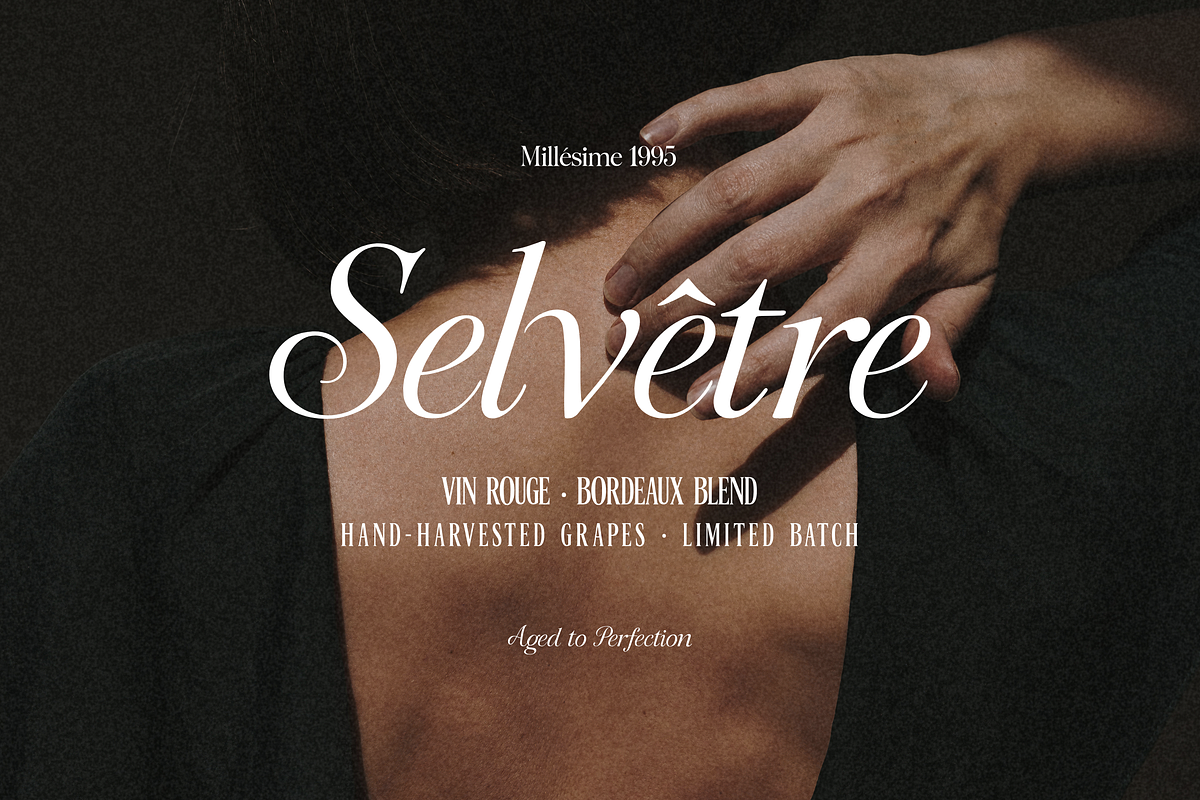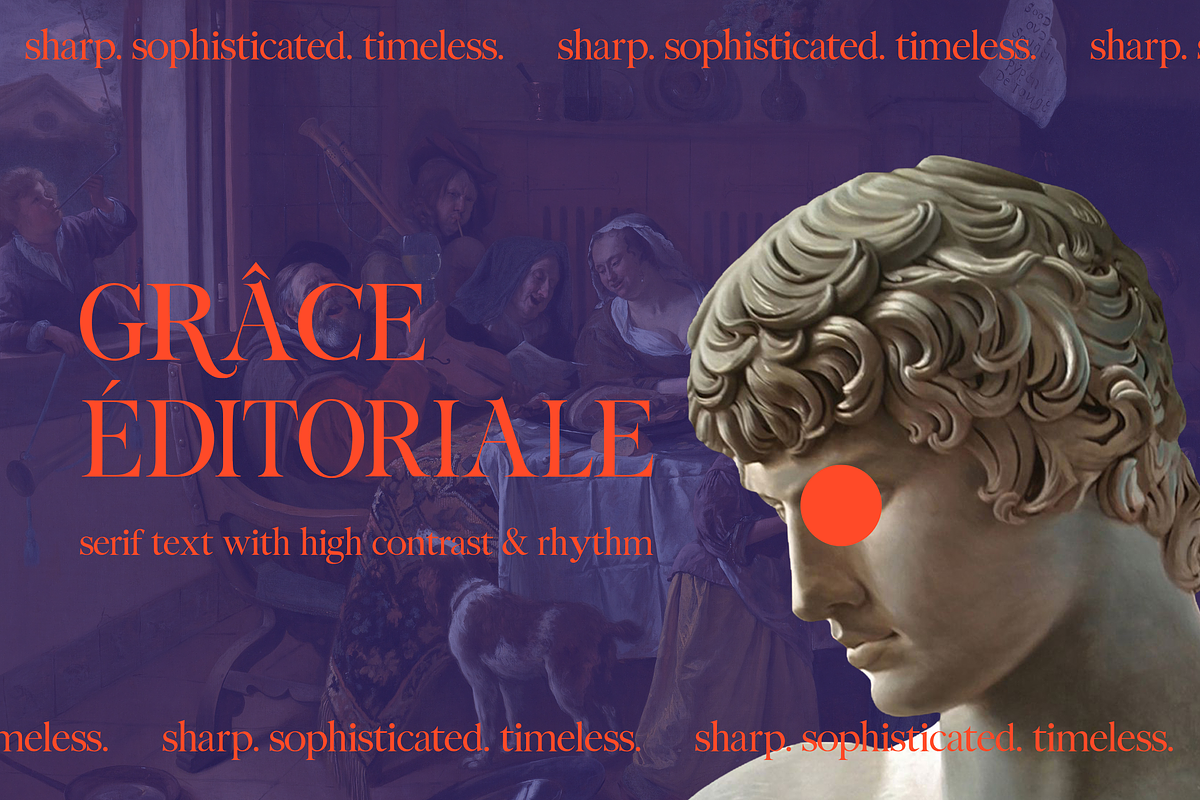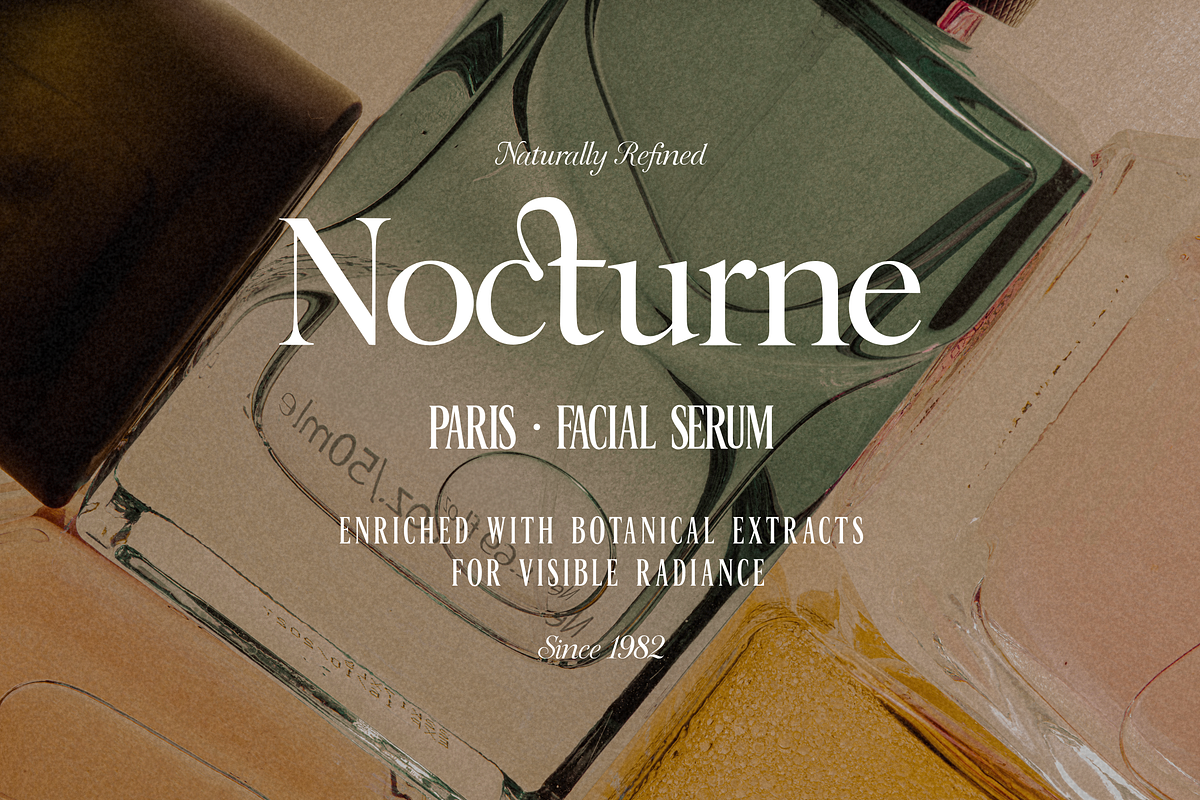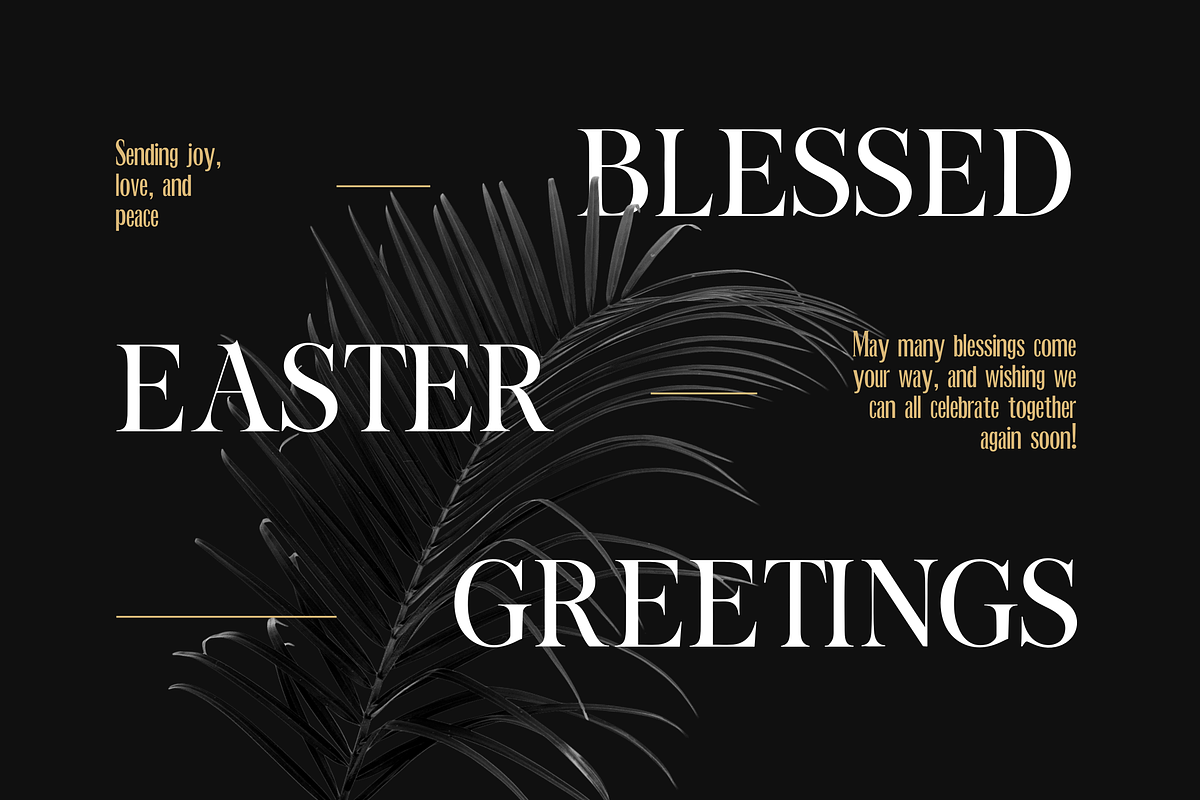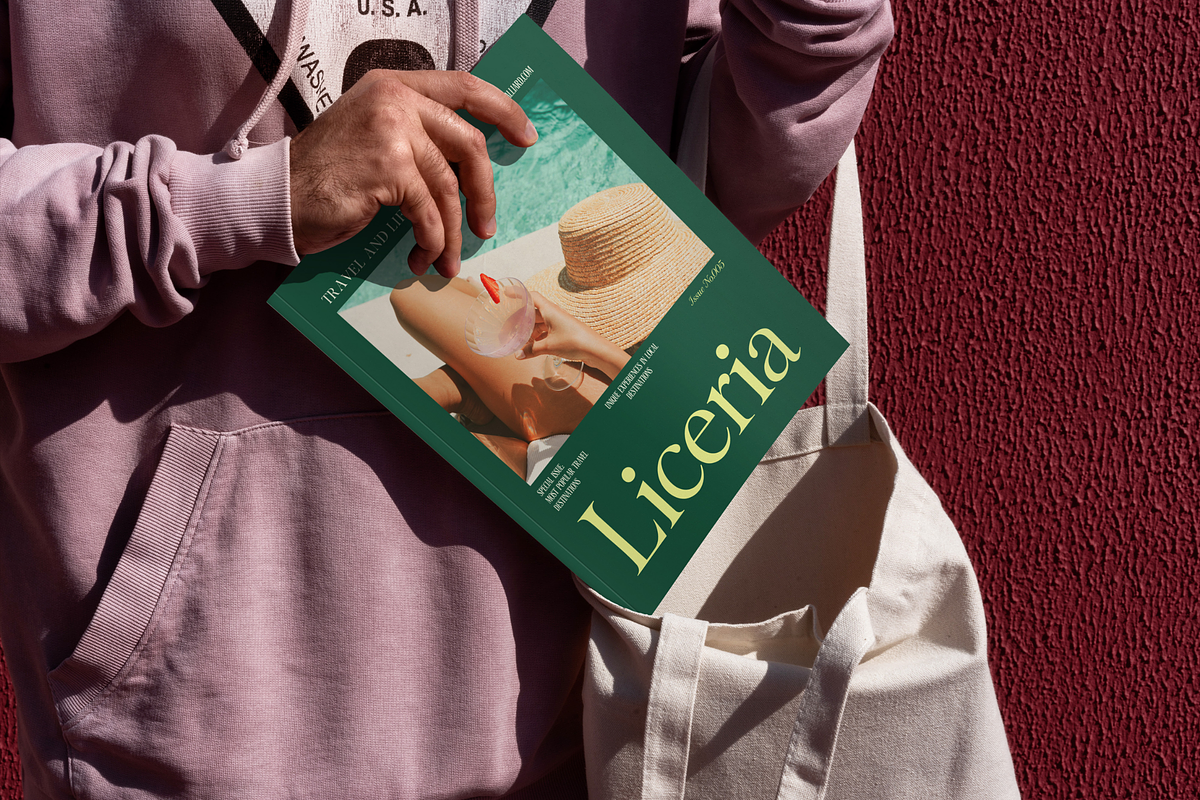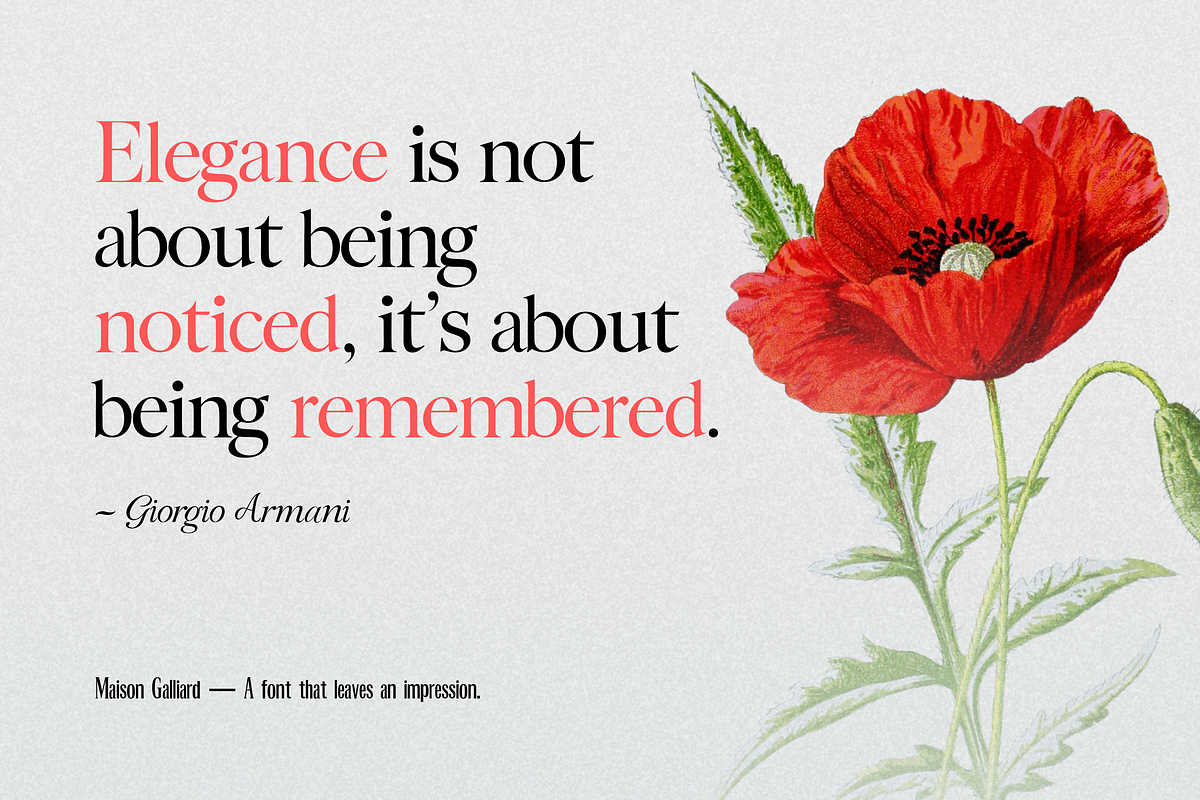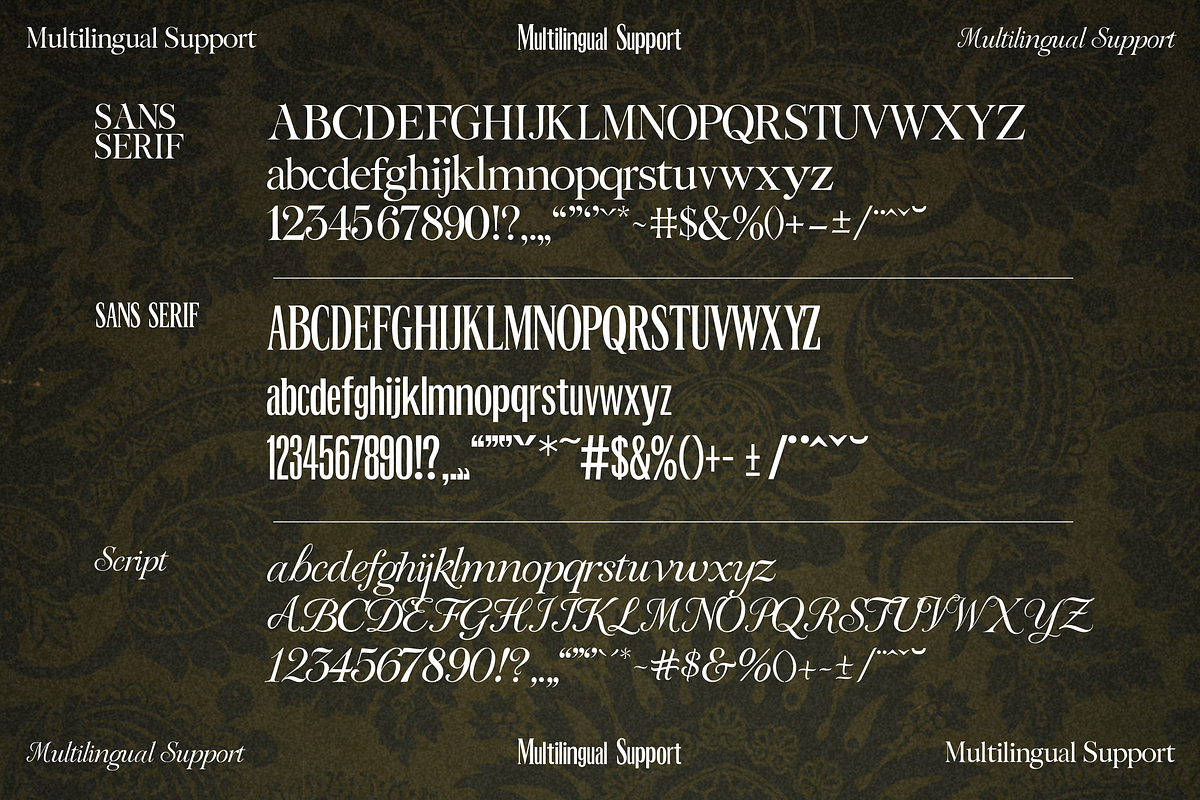
Maison Galliard – Elegant Font Trio
✨ Maison Galliard – Editorial Font Trio
Maison Galliard is an elegant editorial font family featuring three distinct styles: Serif, Sans Condensed, and Script. Inspired by 1960s French editorial design and Renaissance type aesthetics, this trio is crafted to bring timeless sophistication and expressive flair to your visual storytelling.
Whether you’re designing a luxury brand identity, a modern magazine layout, or romantic packaging, Maison Galliard gives you the flexibility to mix strong contrast, clean structure, and flowing handwriting—all in one cohesive system.
- Maison Galliard Serif – a high-contrast editorial serif with sharp triangular serifs and condensed proportions
- Maison Galliard Sans – a refined, space-saving sans condensed, perfect for modern layouts and subtext
- Maison Galliard Script – a flowing calligraphic script for elegant taglines, logos, and accents
- Full uppercase & lowercase A–Z
- Numerals & punctuation
- Alternates & stylistic ligatures (AR, CK, CT, TT, and more)
- Multilingual support (Western European characters)
🖋️ Perfect for:
- Editorial & magazine titles
- Luxury branding & packaging
- Fashion lookbooks
- Wedding invitations
- Logo signatures
- Classy social media posts & more
📐 Design Inspiration Maison Galliard draws its rhythm from the contrast of old-style serif cuts and modern minimalist balance. Use all three styles together to create dynamic typography systems that feel both classic and contemporary.
Let your type tell a story —
Maison Galliard brings heritage and elegance into your hands.